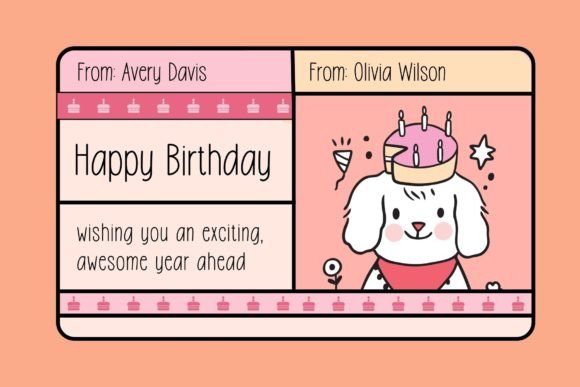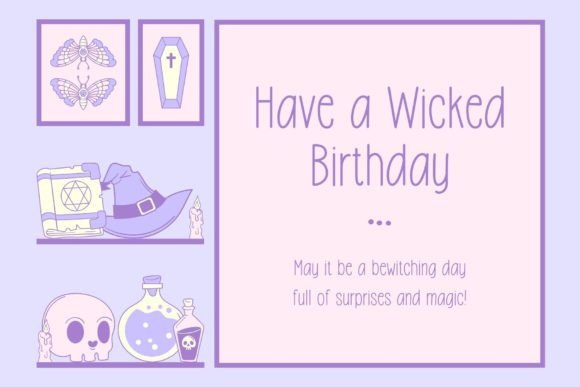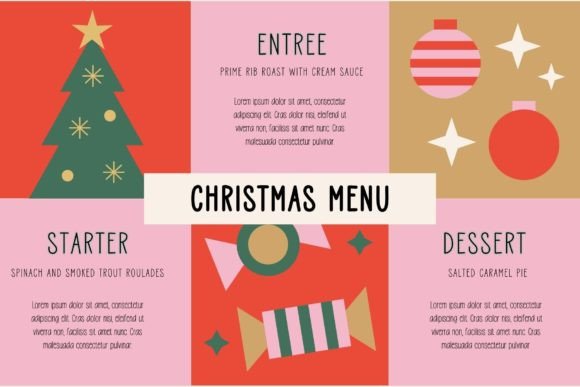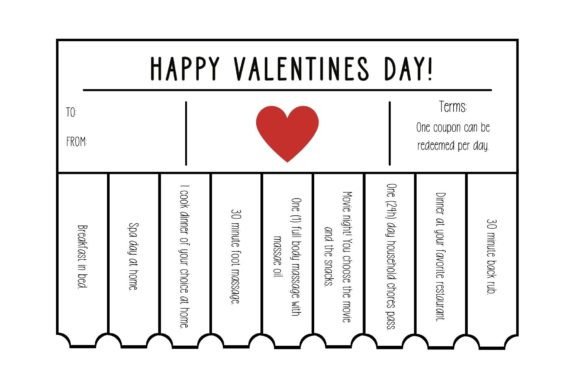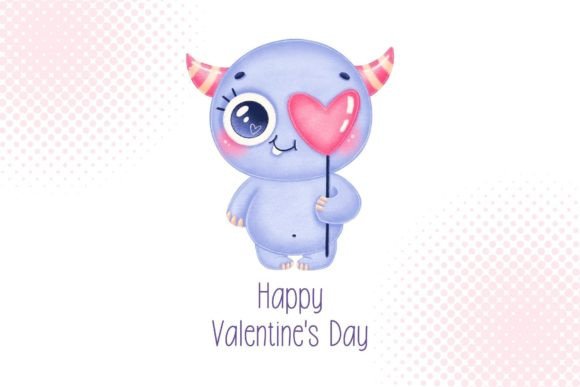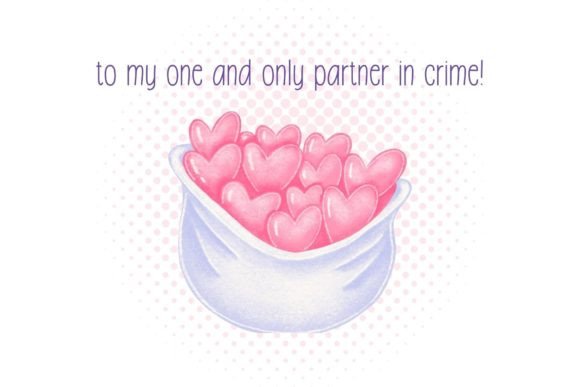
Discover Your Next Design Companion
Have you ever found yourself staring at a blank page, a blank canvas, or a blank screen, waiting for the perfect font to bring your creative vision to life? It’s a moment we’ve all experienced as designers, and it’s exactly this feeling that the Fox Journey Font is designed to alleviate.
This charming, versatile font is the perfect companion for any creative project. With its handwritten simplicity and sans serif style, Fox Journey Font effortlessly elevates your designs, making it an indispensable tool for designers of all levels. Whether you’re working on branding materials, advertisements, or personal projects, Fox Journey Font has you covered. Experience the magic of this font and discover why it’s a must-have in every designer’s toolkit.
Fox Journey Font Key Features
- Font Family: Fox Journey is a unique, handwritten font family with a mix of modern and vintage elements, perfect for creating a distinctive and eye-catching visual identity.
- Unique Characteristics: The font features a mix of handwritten and printed elements, giving it a unique and personal touch. It also includes a range of ligatures and swashes to add an extra layer of sophistication and flair.
Review of Fox Journey Font
First impressions of the Fox Journey Font are quite pleasant. ✨ The unique blend of modern and vintage elements catches the eye, and it’s clear the designer aimed to evoke a sense of adventure and freedom. The font’s irregularities add character, making it perfect for creative projects or those seeking a distinctive look.
The font’s versatility is another strength, as it works well in both digital and print applications. ✨ It’s also quite legible, even at smaller sizes, which is essential for any font used in body text or headings.
- ⚠️ The font may not be ideal for formal or conservative projects, as its bold and playful nature might clash with more traditional designs.
- ⚠️ Some users may find the font’s irregularities distracting or difficult to read, especially in situations where clarity is paramount.
- ⚠️ The font’s limited character set and language support may be a concern for those working with non-English text.
Overall, Fox Journey Font is a solid choice for designers seeking a unique and adventurous look. While it may not be suitable for every project, its strengths make it a great option for those willing to take a risk and try something new.
Tips for Getting the Most Out of Fox Journey Font
To get the most out of Fox Journey Font, use it for creative and modern designs, such as:
– Branding materials
– Digital invitations
– Marketing materials
– Web design elements
The Fox Journey Font is ideal for projects that require a unique and modern touch, such as:
– Adventure-themed designs
– Travel-related projects
– Fashion branding
– Tech-related designs
Alternatives to Fox Journey Font
Playfair Display is a luxurious, elegant script font that works well for titles and headings. It features beautiful connections between letters and a classic feel. Use it for high-end designs, luxury brands, and vintage-inspired projects.
Compared to Fox Journey Font, Playfair Display has a more classic and sophisticated look, making it a better choice for formal designs. However, Fox Journey Font has a more modern and sleek feel.